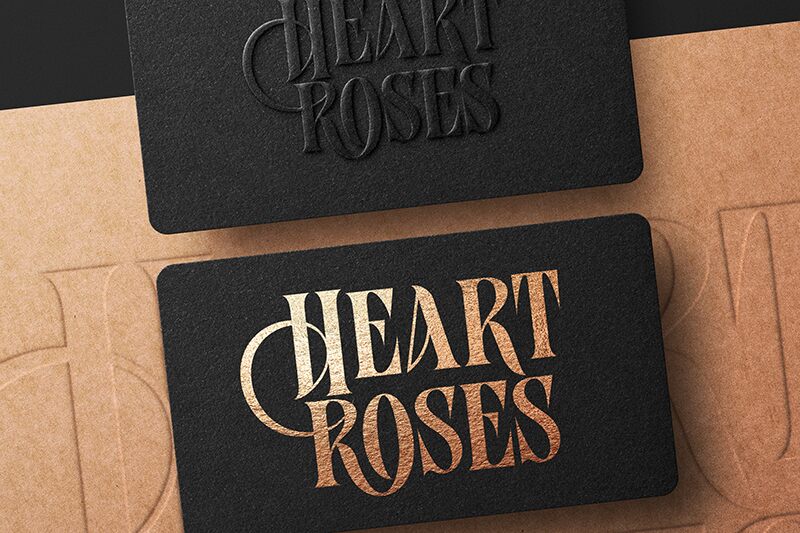
Aslock font is a classy and sophisticated serif typeface designed by Riyadh Rahman. The free font adopts a unique style whose roots are nothing but vintage-inspired and artsy. This elegant font is dramatic in its own way by including highly intricate and ornate details. All these features make the font not just attractive, but decorative and importantly, highly legible.
Multiple use cases are possible with a font with the above visual characteristics. From designing stunning packaging to incredibly elegant communication material, there is no limit. This often includes but is not limited to branding design, magazines, and books. You can use it for public spaces, events, posters, and social media posts.